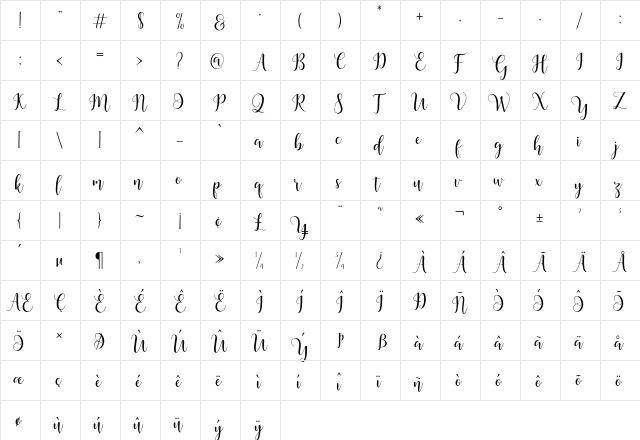
Madelina Script Regular
Design Context for Madelina Script Typeface
Madelina Script flows with the natural rhythm of handwritten lettering, making it ideal for designs that call for warmth and personal expression.
Font Pairing: Combine Madelina Script with a simple geometric sans for maximum contrast — the tension between flowing curves and clean structure is a classic typographic pairing.
Pro Tip: Use Madelina Script for short runs of text — names, titles, or taglines. Extended body copy in script faces tires the eye quickly.